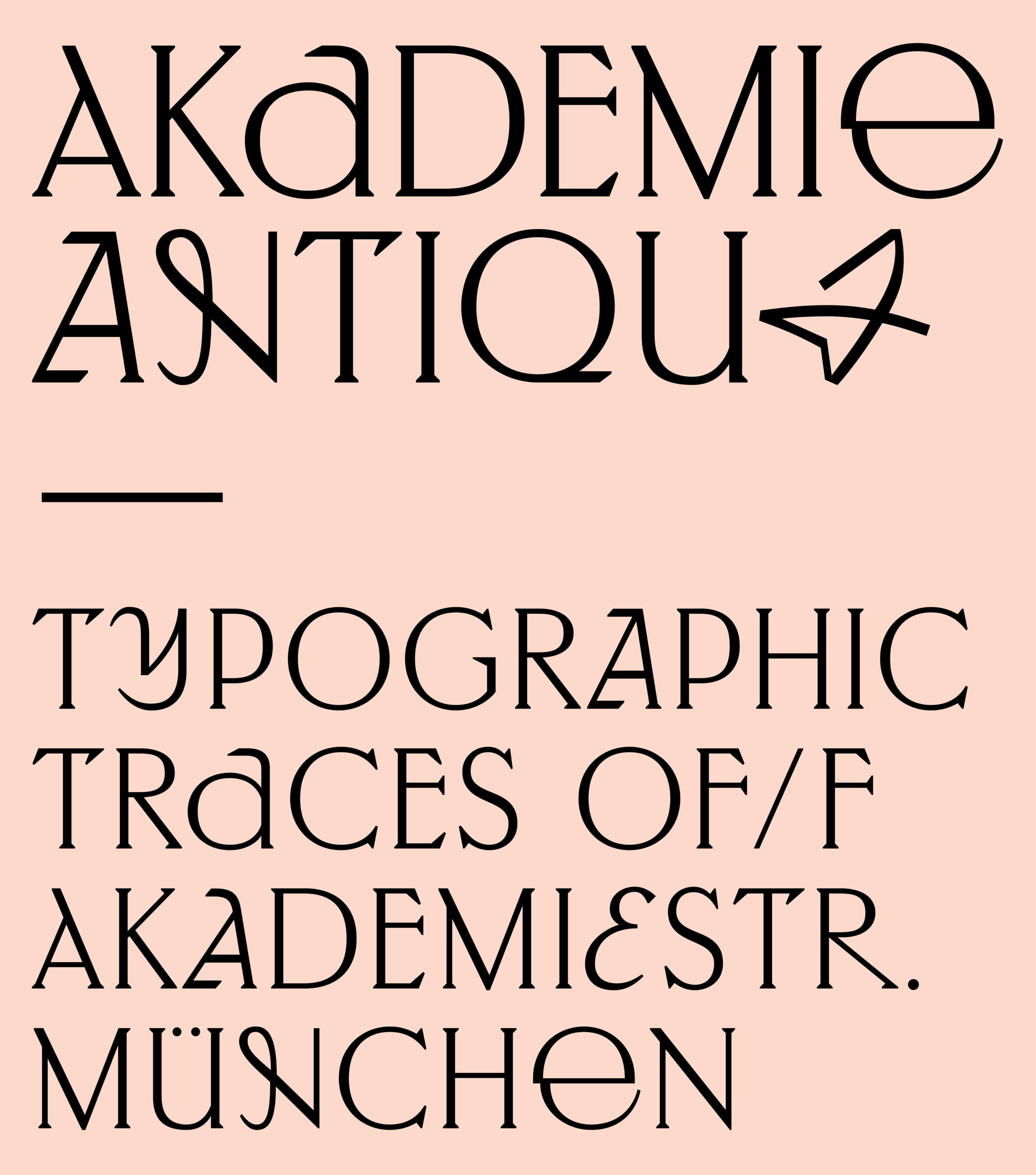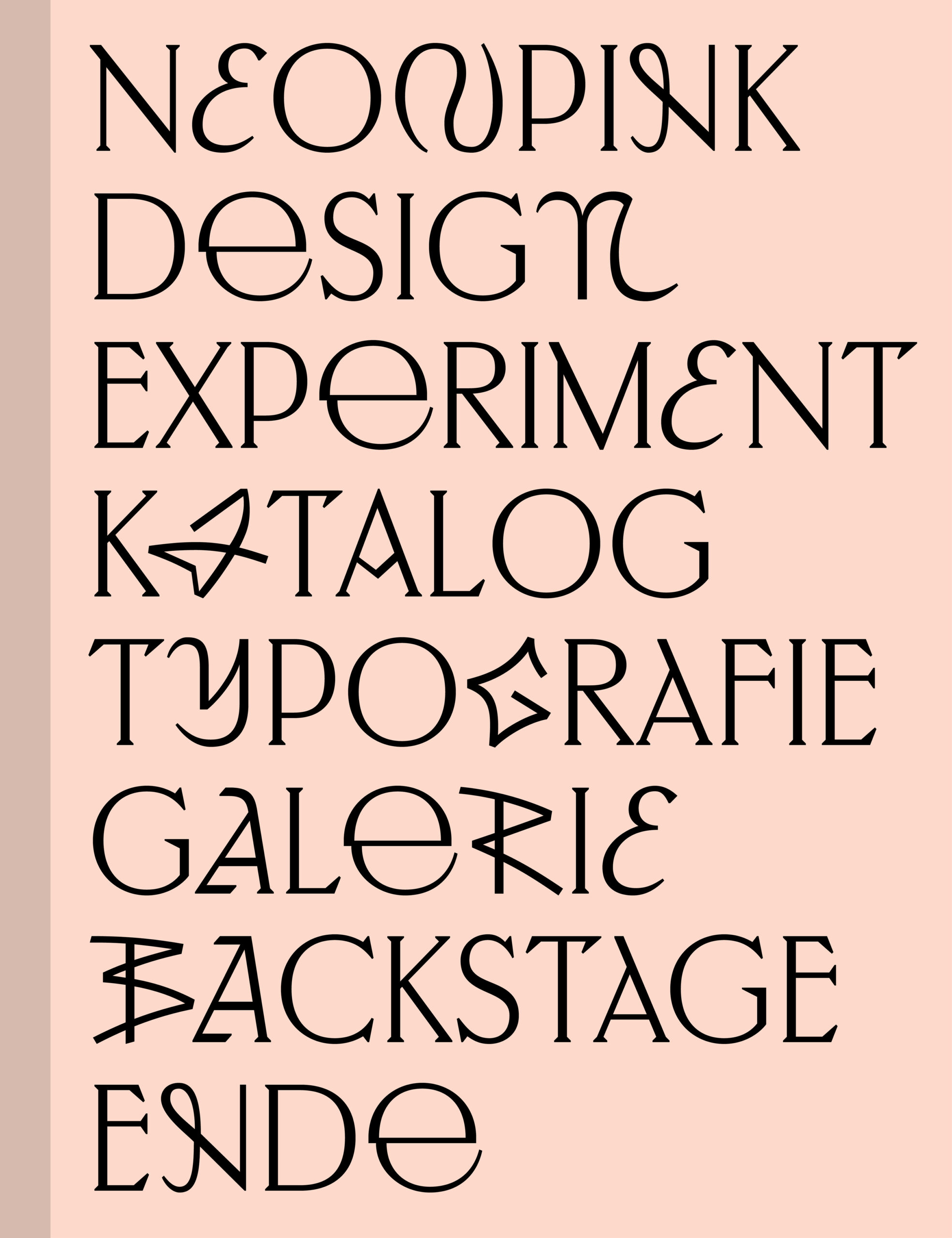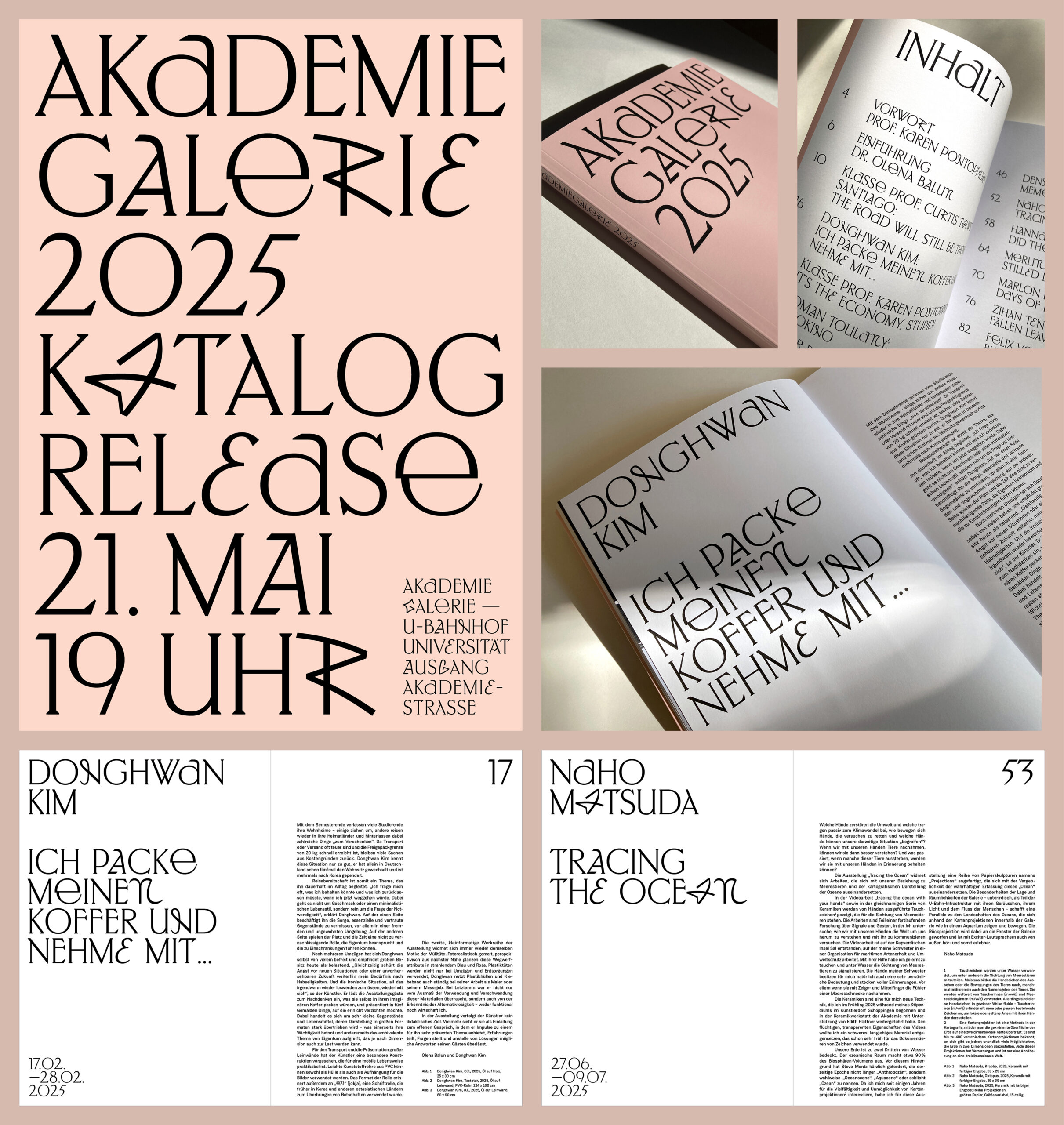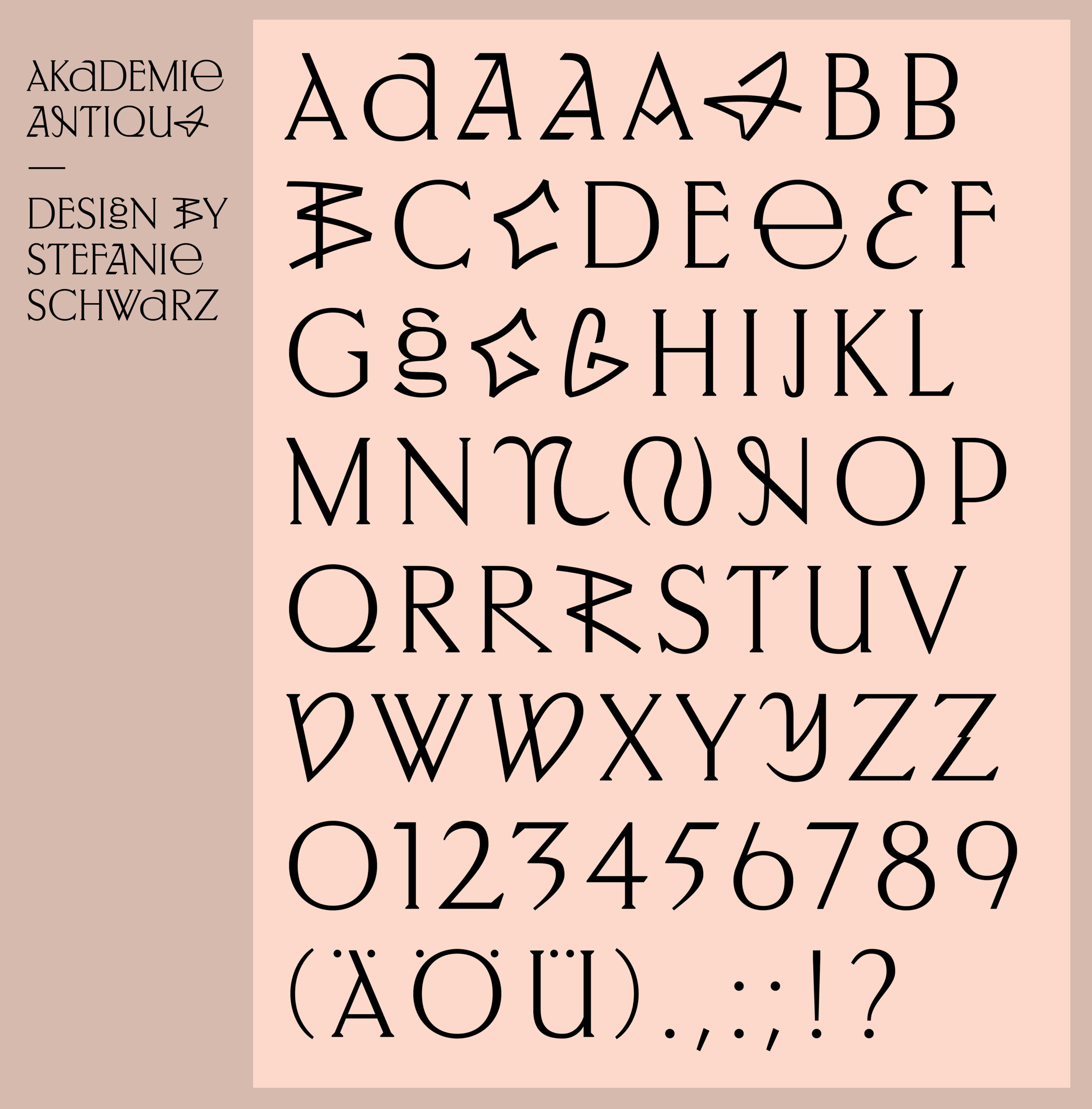
Akademie Antiqua is based on various typographic traces found at Munich’s art academy and the streets around. As an artist in residence at Akademie der Bildenden Künste München, Stefanie researched about former type design professor Fritz Helmut Ehmcke (1878–1965) and viewed further type-related archive material. At the same time she collected typographic snippets on her daily walks in Munich and along Akademiestrasse. This visual research was translated into a unicase typeface that combines traditional, elegant shapes with rough and anarchic elements reflecting the academy’s history and attitude over the last two centuries. (Stefanie Schwarz, 2025)